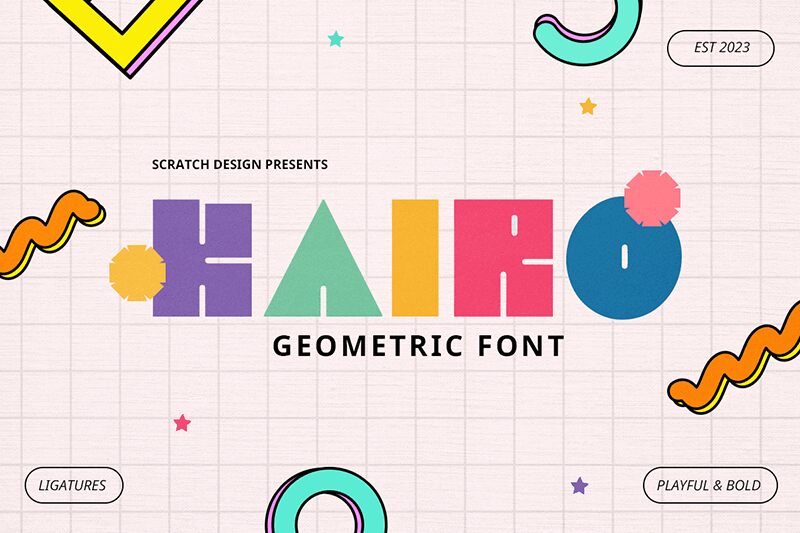
Kairo font by Scratch Design is a free font showcasing a stylish and modern style with round, square, and irregular geometric elements. A retro atmosphere with a contemporary twist is perceived in this interesting new work that combines sharpness and the smoothness of diacritics and swashes with the bold uppercase letters.
A lively, happy, and futuristic mix makes Kairo a font excelling in vibrant, dynamic applications. Logos, titles, posters, labels, apparel, and any kind of visual identity for energetic brands and projects can benefit from this product.